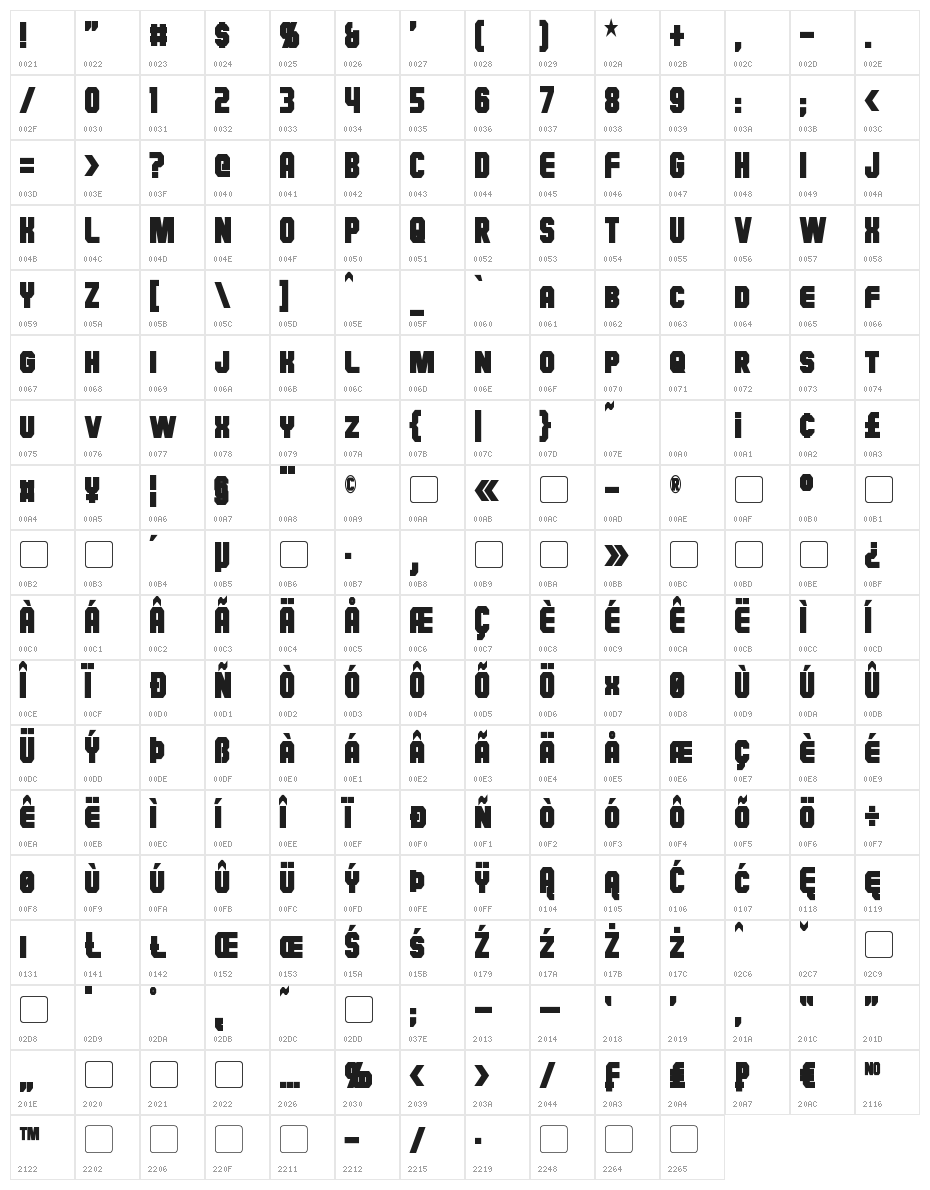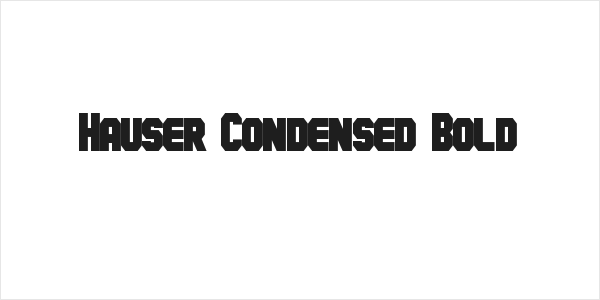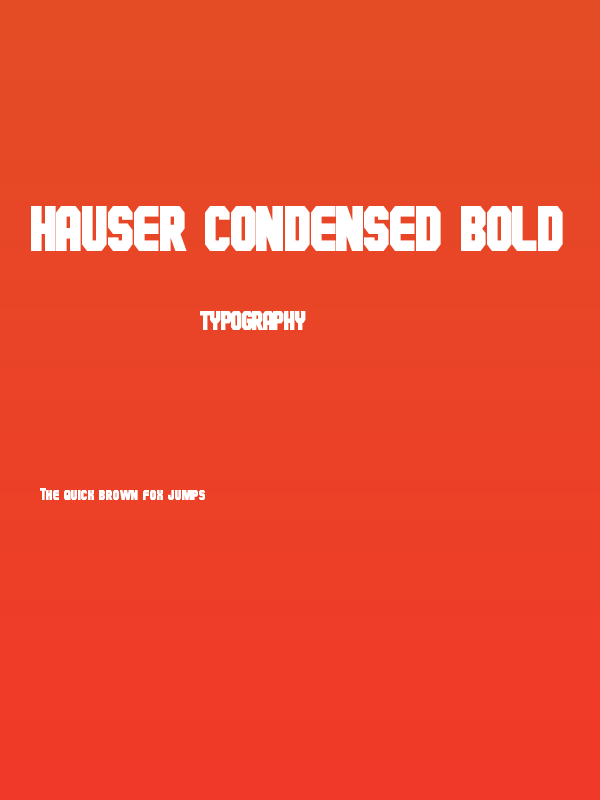
Hauser Condensed Bold Font
Hauser Condensed Bold Description
This font features a bold and condensed style with a strong geometric structure. The characters are blocky and robust, with sharp angles and a uniform thickness throughout. The uppercase letters are particularly striking, creating a powerful visual impact. The numerals and special characters maintain the same boldness and geometric precision, ensuring consistency across all elements. This font is designed to grab attention and convey strength and modernity, making it ideal for impactful headlines and branding materials.
Proposed ProjectsIdeal for branding, posters, headlines, and any design requiring a strong visual impact.